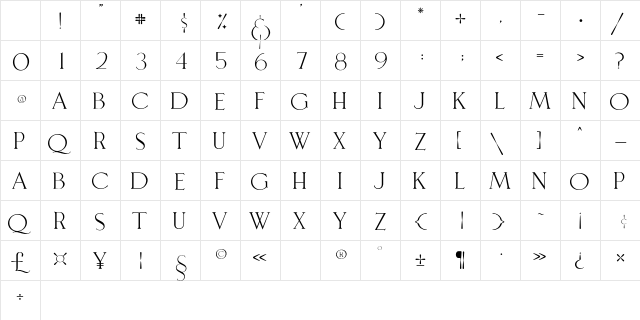
Complete Leonetta Serif glyph index. Displaying only characters natively supported by Leonetta Serif font.
Leonetta carries the refined structure of traditional serif typography, with bracketed terminals and considered proportions that communicate credibility and craft.
Pro Tip: Use Leonetta for editorial body copy and considered headline work. Pair with a neutral sans for UI elements or captions to create a classic hierarchy.